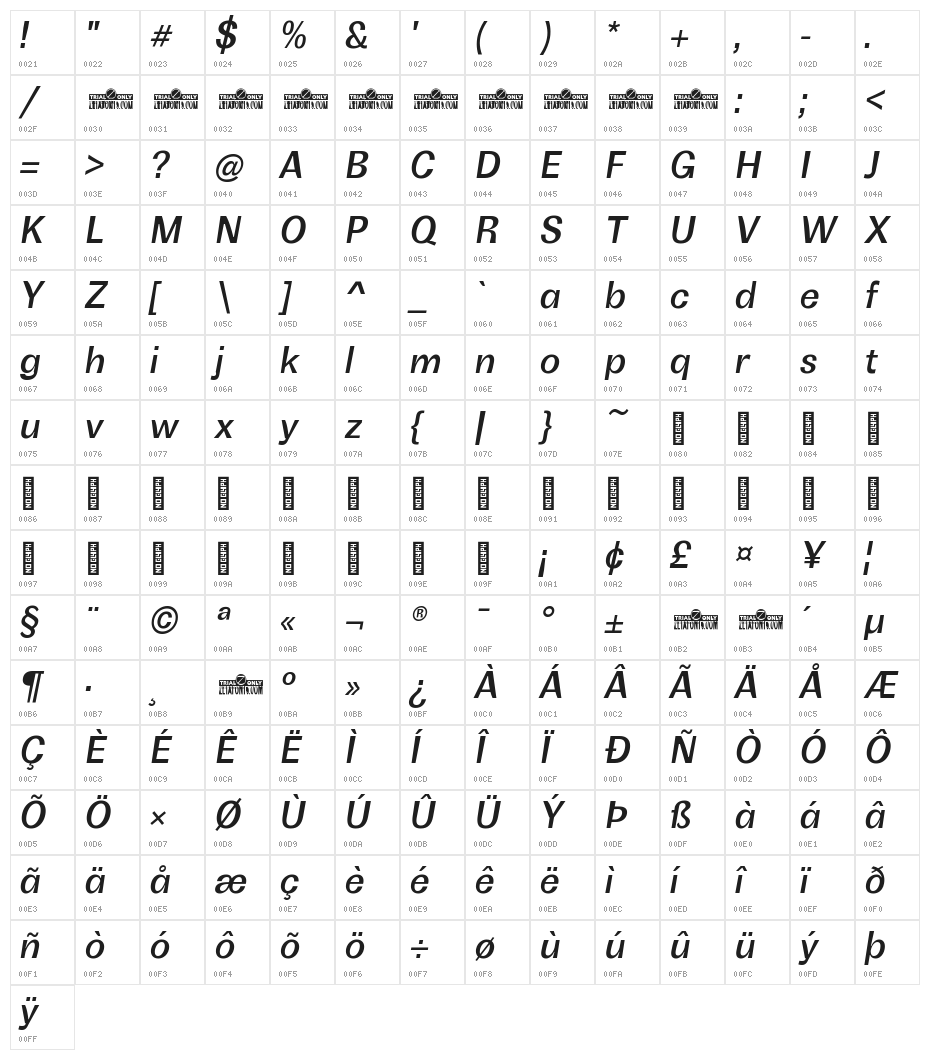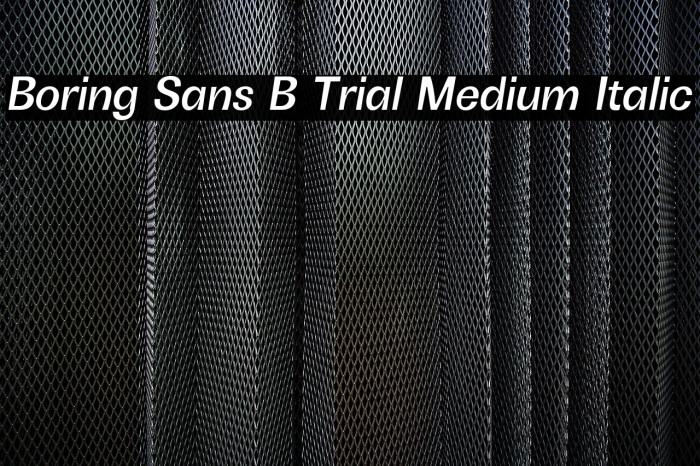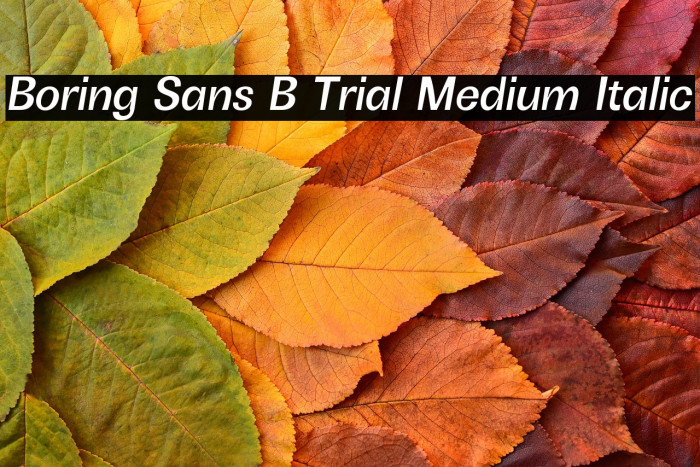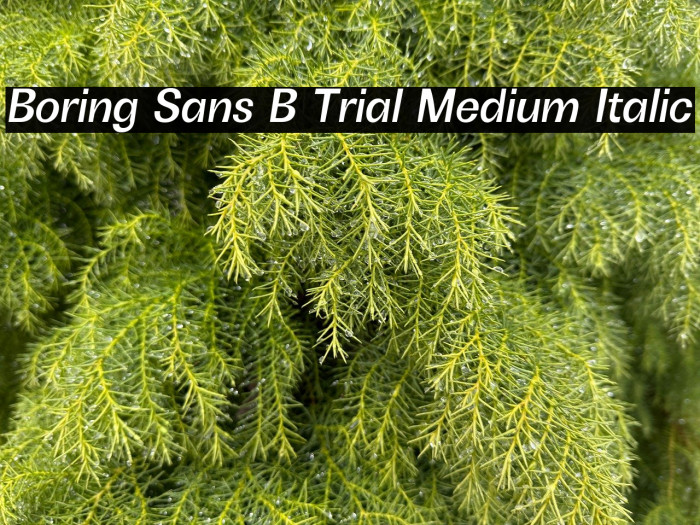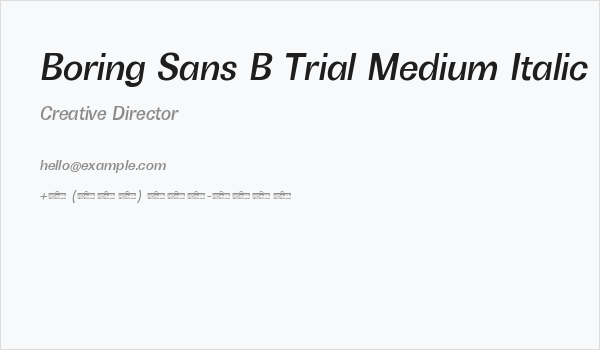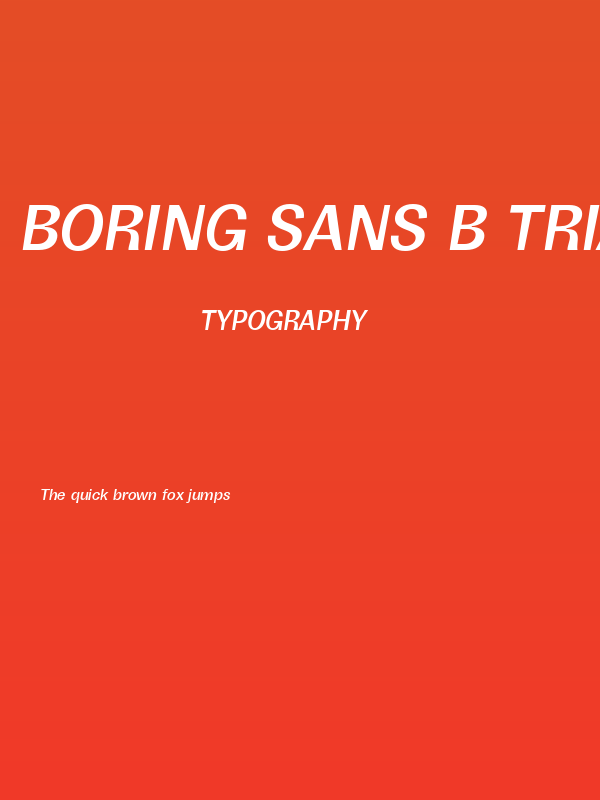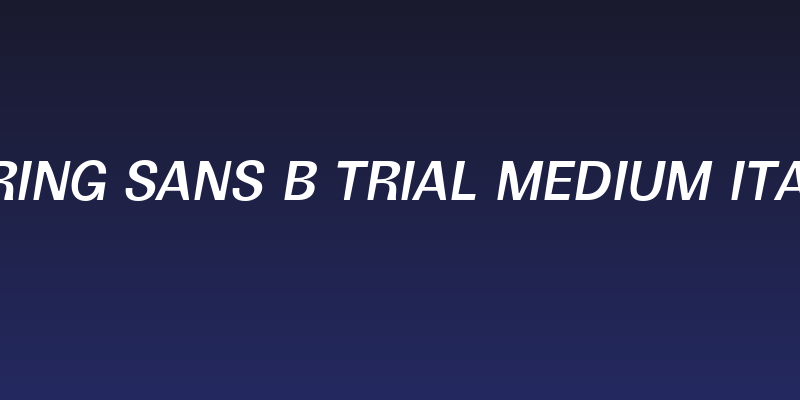
Boring Sans B Trial Medium Italic Font
Boring Sans B Trial Medium Italic Description
This font features a clean and modern sans-serif style with a medium weight and italicized form. The characters are slightly slanted, giving a dynamic and forward-moving appearance. The strokes are consistent in thickness, providing a uniform look across all letters and numbers. The font maintains a balanced proportion, making it versatile for various design applications. The character spacing is normal, ensuring readability while maintaining a sleek aesthetic. Special characters are included, matching the overall style of the alphabetic characters.
| Proposed Projects | Ideal for branding, advertising, and editorial design projects where a contemporary and professional look is desired. |